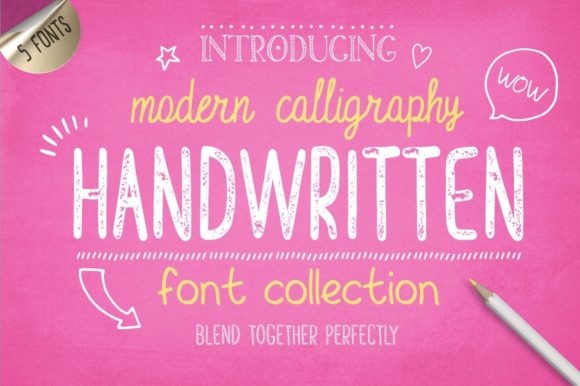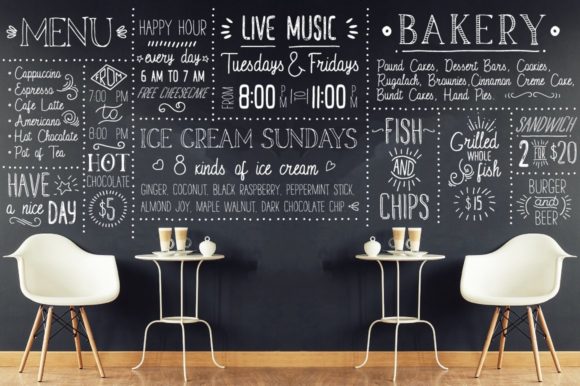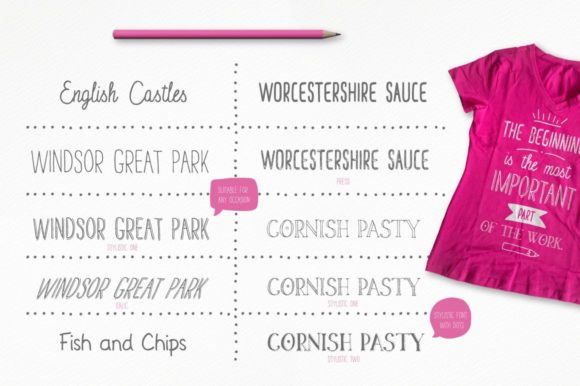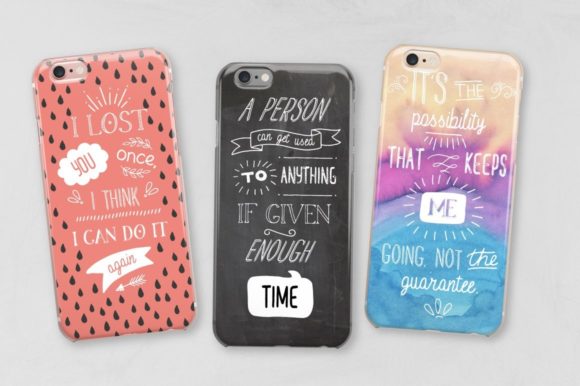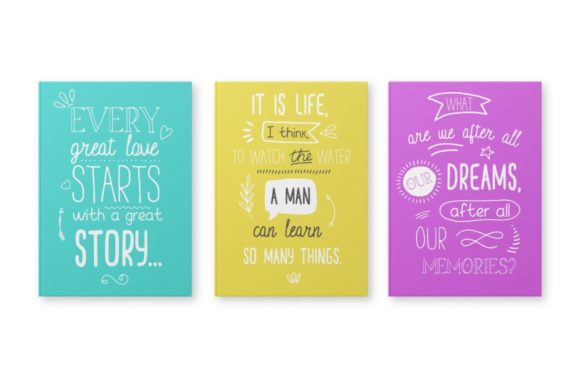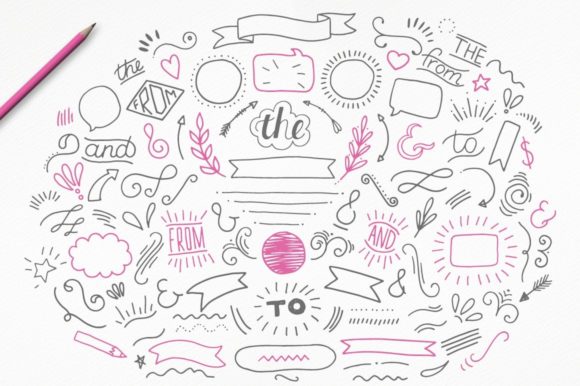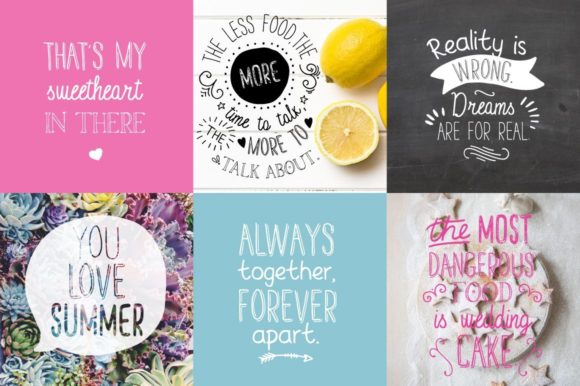
Handwritten Font Collection Font
Unveiling the Handwritten Font Collection, Julia presents a harmonious blend of creativity and functionality. This curated ensemble features five hand-drawn fonts, each accompanied by five alternative styles, meticulously crafted to seamlessly blend together and suit a plethora of design projects. With applications ranging from logos and branding to greeting cards, t-shirts, and posters, this collection offers a versatile toolkit for creative minds.
**The Fonts:**
1. **English Castles:**
– A sleek and slim script font that effortlessly complements other fonts in the collection. Its versatility makes it a perfect addition to various design contexts.
2. **Windsor Great Park:**
– This hand-drawn uppercase sans-serif font combines a clean and distinctive style, adding a touch of sophistication to your typographic designs.
3. **Windsor Great Park Stylistic One:**
– An alternative style with added volume, providing a unique and dynamic flair. This variation adds diversity to your font choices within the collection.
4. **Windsor Great Park Italic:**
– Retaining volume and introducing an italic style for added emphasis and variety. This font choice brings a sense of style and elegance to your projects.
5. **Fish and Chips:**
– A delightful and cute handlettering font that injects playfulness into your designs, making it perfect for a range of creative applications.
6. **Worcestershire Sauce:**
– A manually crafted uppercase display font with a distinct style, adding character and personality to your text-based designs.
7. **Worcestershire Sauce Press:**
– Specifically designed for chalkboard writing, this font introduces a rustic touch, making it ideal for projects seeking a vintage and handcrafted aesthetic.
8. **Cornish Pasty:**
– A hollow hand-drawn font that stands out with its artistic and unique flair, bringing a creative touch to your typographic compositions.
9. **Cornish Pasty Stylistic One:**
– An alternative style featuring strips, allowing for diverse and eye-catching poster designs that captivate the audience.
10. **Cornish Pasty Stylistic Two:**
– Another alternative style with points, providing creative possibilities for card decoration and design embellishments.
**Hand Drawn Elements:**
– Comprising 105 free elements crafted exclusively for this package, these additions serve to complement and complete your design projects with unique and creative touches.